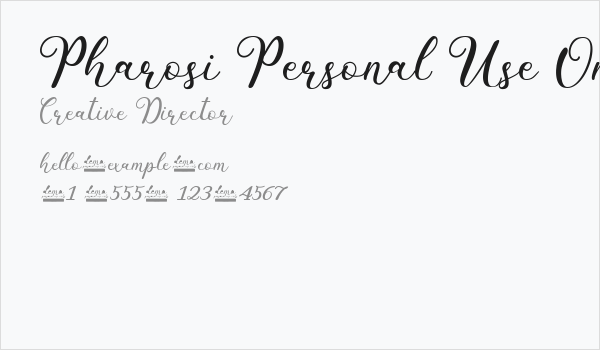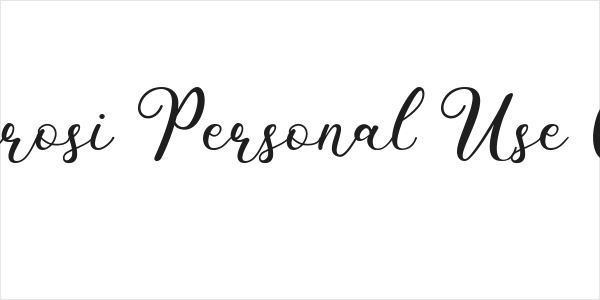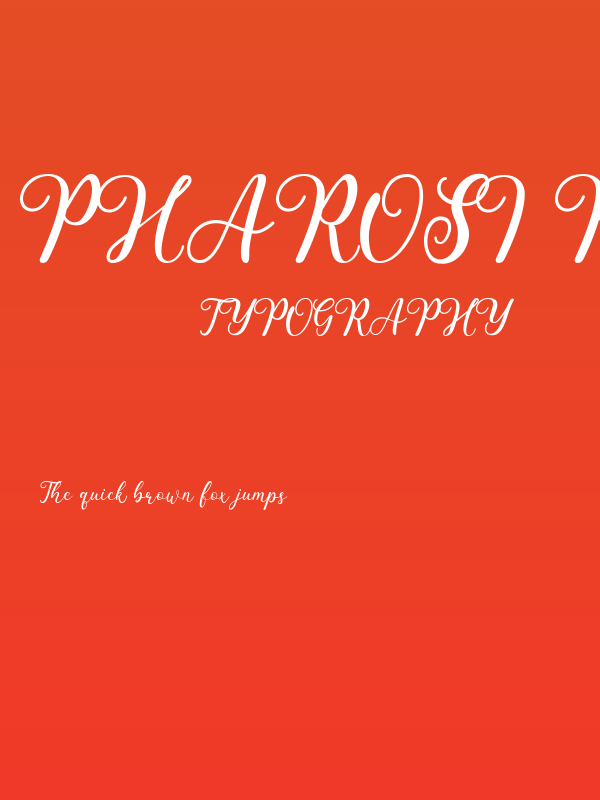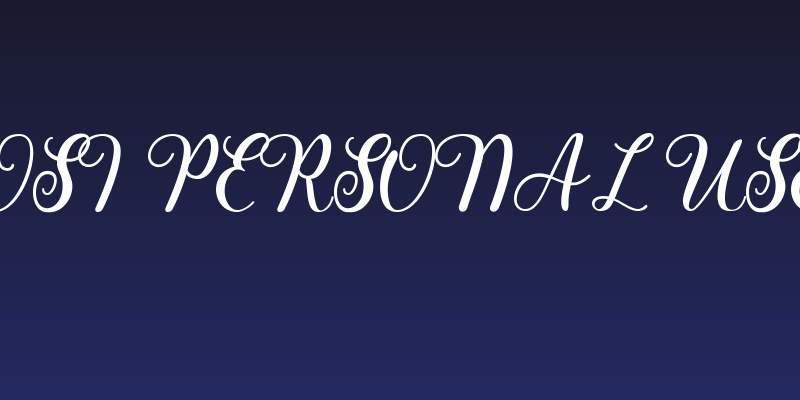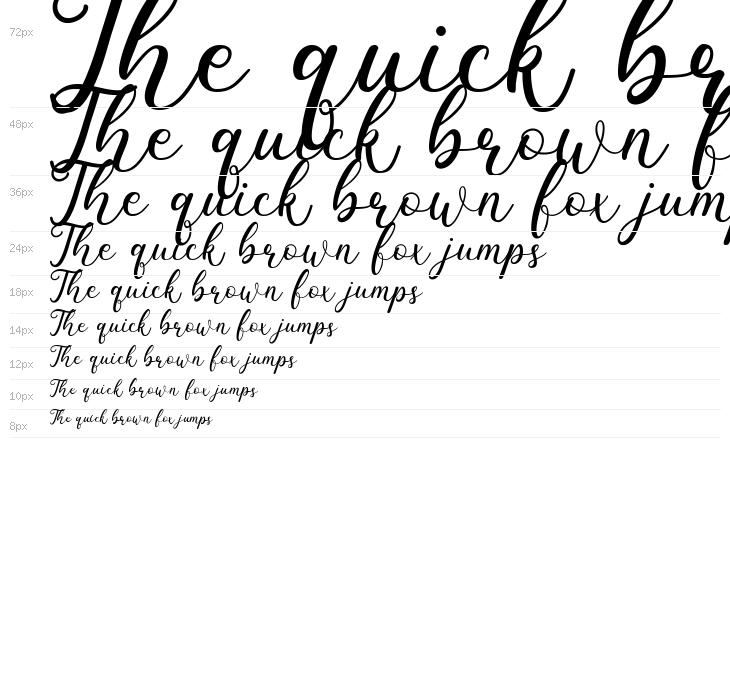
Pharosi Personal Use Only Font
Pharosi Personal Use Only Description
This elegant script font features flowing, cursive letters with a smooth and graceful appearance. The uppercase letters are slightly more ornate, with sweeping curves and flourishes that add a touch of sophistication. The lowercase letters maintain a consistent style, with gentle loops and connections that create a seamless flow. The numerals are designed to match the script style, with a balanced and harmonious look. This font is perfect for adding a personal and stylish touch to any project, whether it's for invitations, branding, or decorative purposes.
| Proposed Projects | Ideal for wedding invitations, branding, greeting cards, and decorative designs. |